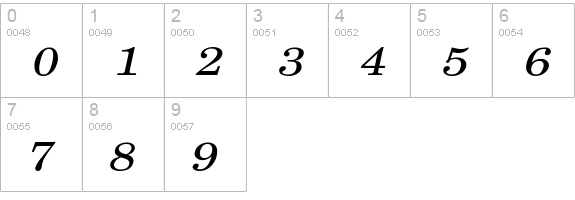
New Boston Wide Italic is a distinctive, extended-width, italic variant in the New typeface family \xE2\x80\x94 well suited to design and typography projects.
Introducing New Boston Wide Italic font – a sleek and sophisticated typeface that exudes elegance and modernity. With its wide and italic design, this font is perfect for adding a touch of style to any project or design. Whether you're working on a branding project, website design, or print materials, New Boston Wide Italic font will make your text stand out. The best part? This stunning font is available for free download at FontsMarket.com. Don't miss out on the opportunity to elevate your designs with this versatile and eye-catching typeface. Download New Boston Wide Italic font today and take your projects to the next level.